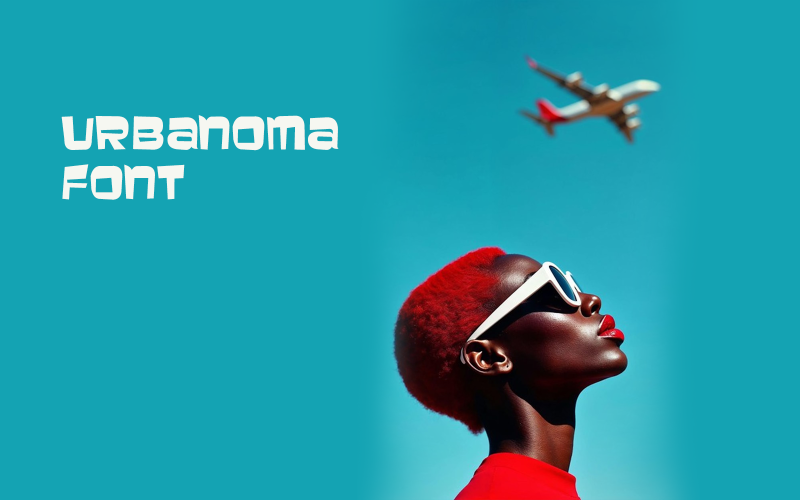
Urbanoma font-Regular-084-25 Font
Uncage your creativity with Urbanoma a font born from rebellion and raw edge.
Its brutal angles and unfiltered form bring underground culture to the surface.
Built for the streets, the canvas, and everything between.
Loud, unapologetic, and bursting with visual tension.
Urbanoma: Not just letters—visual noise.